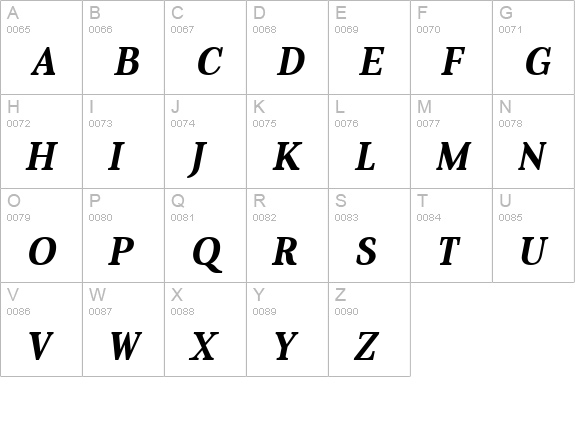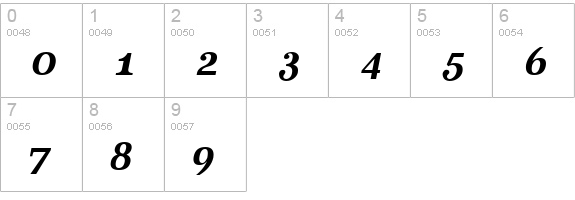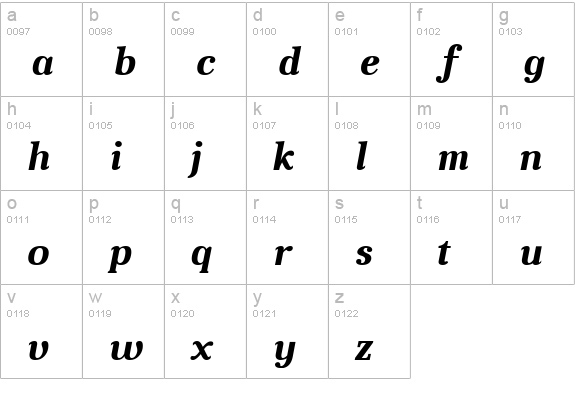
Aver Bold Italic Font Details
Aver Bold Italic is a strong, high-contrast, italic variant in the Aver typeface family \xE2\x80\x94 well suited to headlines, attention-grabbing titles, and strong calls-to-action.
Aver Bold Italic is a striking and expressive font that combines the boldness of its weight with the elegance of its italic style. With its strong and confident appearance, this font is perfect for creating eye-catching headlines, attention-grabbing logos, and standout designs. The sleek and sleek curves of Aver Bold Italic add a touch of sophistication to any project, making it a versatile choice for both digital and print applications. Whether you're designing a website, creating a magazine layout, or crafting a marketing campaign, this font will make a lasting impression. One of the best features of Aver Bold Italic is that it is freely available to download at FontsMarket.com. This means that you can easily access and use this font without any hassle or cost. With just a few clicks, you can add this stylish and modern font to your design toolkit and start creating stunning visuals. The versatility and accessibility of Aver Bold Italic make it a favorite among designers and creatives. Its bold and italic combination allows for endless design possibilities, giving you the freedom to experiment and create unique compositions. So, if you're looking for a font that combines strength, elegance, and creativity, look no further than Aver Bold Italic. Download it for free at FontsMarket.com and let your imagination run wild. Whether you're working on a personal project or a client's brief, this font will elevate your designs to new heights.